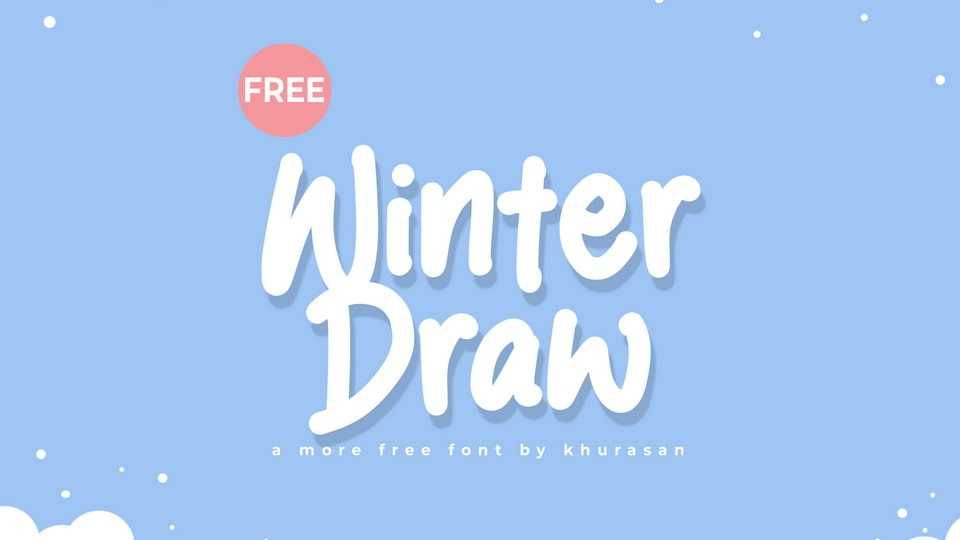
Download Winter Draw font, a playful, hand-drawn typeface inspired by cozy winter moods, soft snowfall, and childlike joy. Its rounded letterforms and smooth, brush-like strokes give it a warm and friendly personality